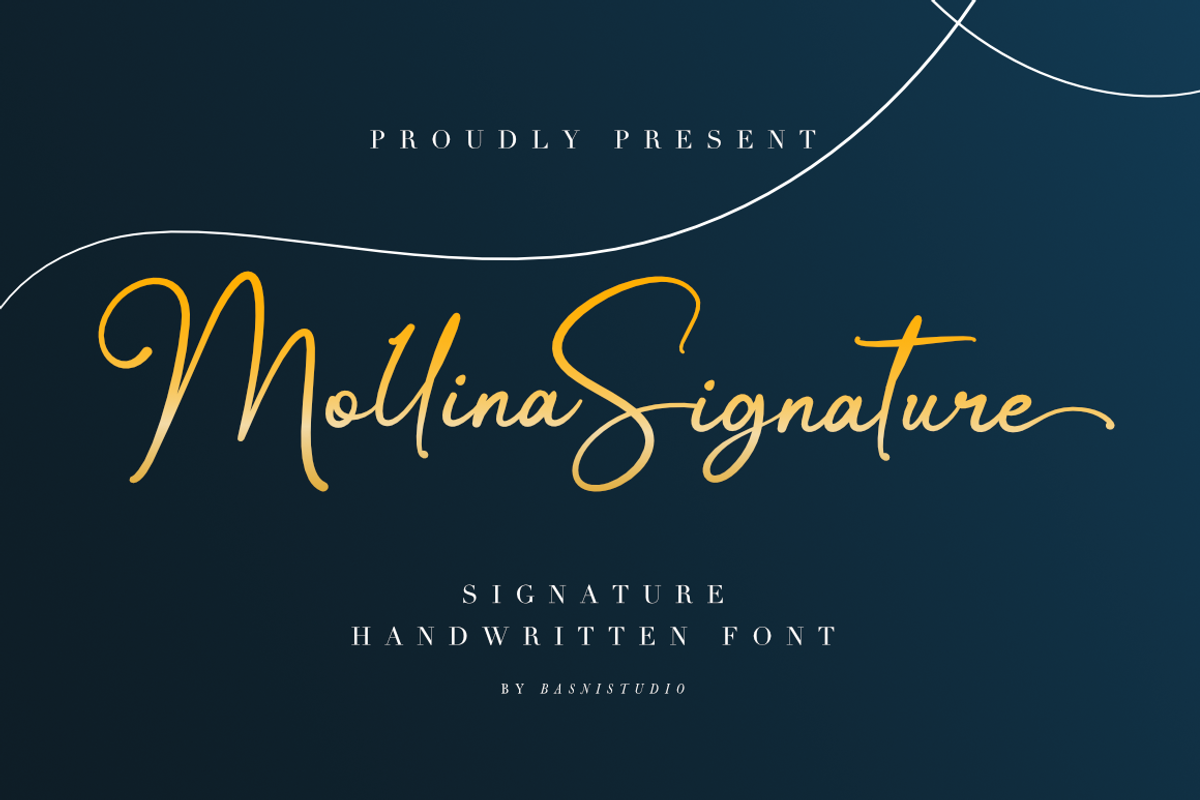
Mollina Signature | Handwritten Font Free Download
The Mollina Signature | Handwritten Font Free Download is a sophisticated and elegant script typeface designed to give your projects a personal and artistic touch. With its smooth, flowing strokes and stylish, handwritten appearance, this font is perfect for creating high-end branding, wedding invitations, logos, and more. Whether you're designing for a luxury brand, a personal event, or a creative project, Mollina Signature adds a unique and graceful flair to your work.
Mollina Signature | Handwritten Font Free Download is ideal for designers looking to create elegant and personalized designs. Perfect for upscale branding, custom invitations, or artistic projects, this font will elevate your designs with its refined, handwritten style. Download it today and add a touch of sophistication and elegance to your creative work with Mollina Signature!